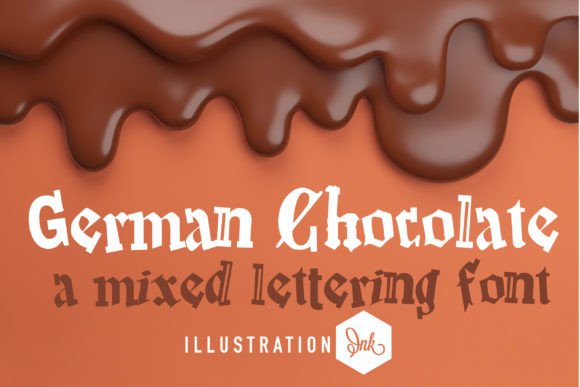
Introducing German Chocolate Font, the epitome of indulgence and sophistication in the world of typography. Crafted by the talented minds at Illustration Ink, this delectable blackletter font is guaranteed to captivate your senses and leave a lasting impression on anyone who beholds its magnificence.
Drawing inspiration from the irresistible allure of chocolate, German Chocolate Font is a true masterpiece that combines the rich flavors of calligraphy with the intricate details reminiscent of melted chocolate. Each letter is meticulously crafted to mimic the texture and smoothness of this delectable treat, ensuring a visual feast for the eyes.
Whether you're a passionate calligrapher, a creative designer, or a savvy marketer, German Chocolate Font is your ultimate companion for all your projects. Its versatility knows no bounds, making it the perfect choice for packaging designs that crave a touch of luxury and elegance. Imagine your product adorned with this font, instantly elevating its appearance and enticing potential customers to take a closer look.
Branding has never been more delightful with German Chocolate Font. Craft unique logos and taglines that exude sophistication and class, leaving an indelible mark on the minds of your target audience. Stand out from the crowd and make your brand truly unforgettable.
Advertising campaigns reach new heights of creativity with German Chocolate Font. Its captivating allure will draw attention and create a lasting impact on any print or digital advertisement. Leave your competitors in awe as you effortlessly communicate your message with style and finesse.
But German Chocolate Font isn't just about aesthetics; it's about evoking emotions and creating memorable experiences. With its enchanting curves and elegant strokes, this font speaks to the heart, creating a sense of warmth and nostalgia. It's the perfect choice for wedding invitations, greeting cards, or any project that aims to tug at the heartstrings.
So why settle for ordinary when you can experience the extraordinary? Indulge in the luxury of German Chocolate Font and unleash your creativity like never before. Let your designs speak volumes and leave a lasting impression on all who encounter them.